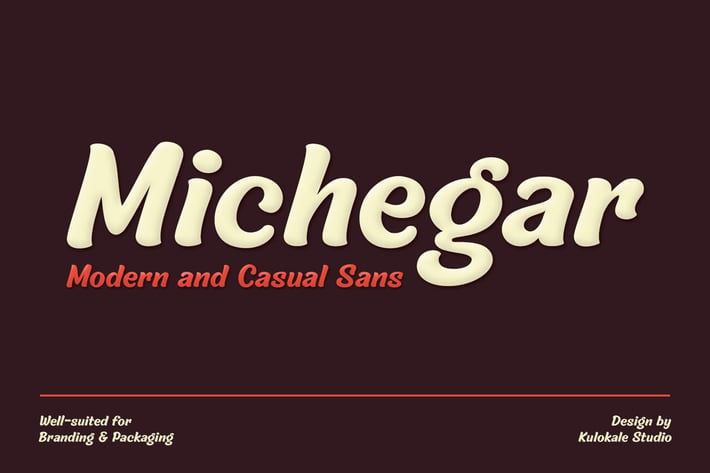
Sans Serif Font - Michegar
Kulokale
Modern and casual sans serif font. Michegar is well-suited for advertising, branding, logotypes, packaging, titles, headlines and editorial design.